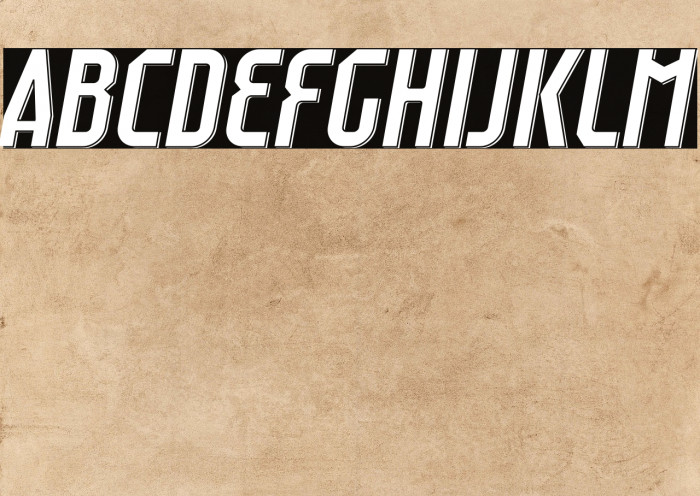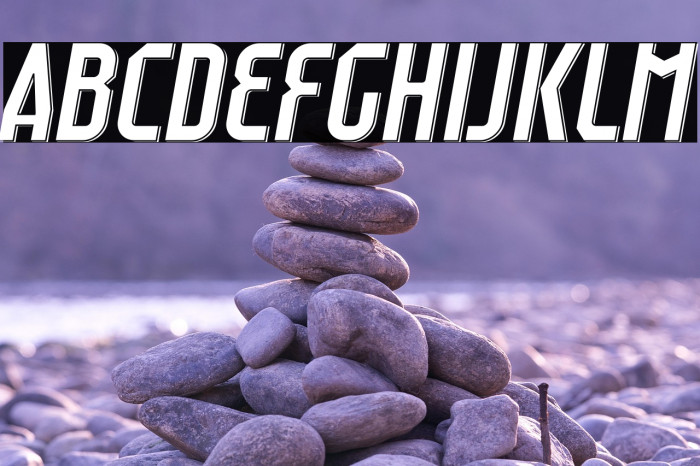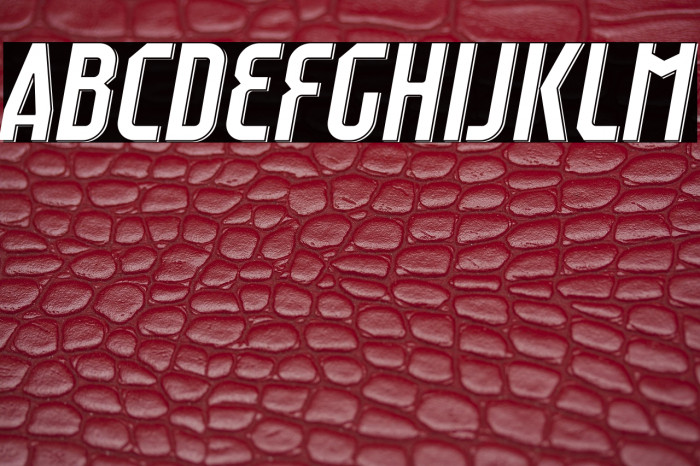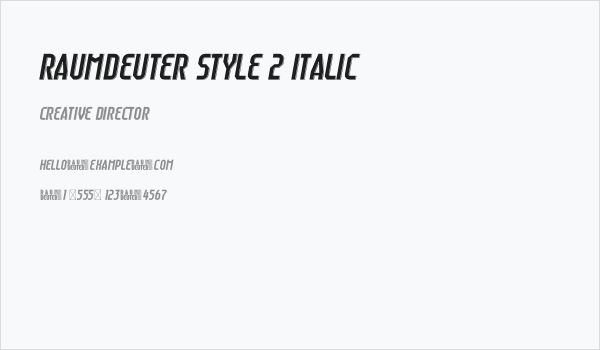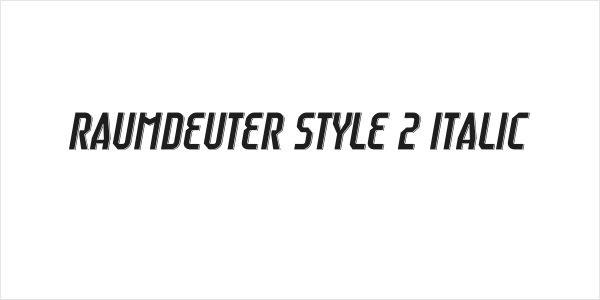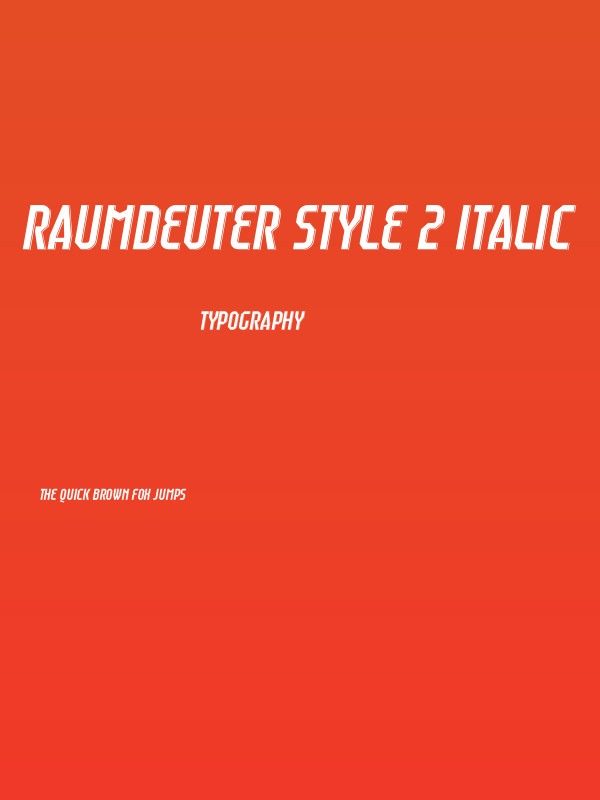
Raumdeuter Style 2 Italic Font
Raumdeuter Style 2 Italic Description
This font exhibits a bold and dynamic style with a distinct italic slant, giving it a sense of movement and energy. The characters are angular and geometric, featuring sharp edges and a modern aesthetic. The uppercase and lowercase letters maintain a consistent design, while the numerals and special characters complement the overall look. The font's strong presence makes it suitable for impactful designs, where a contemporary and assertive appearance is desired.
| Proposed Projects | Ideal for branding, sports team logos, posters, and any design needing a bold, modern look. |